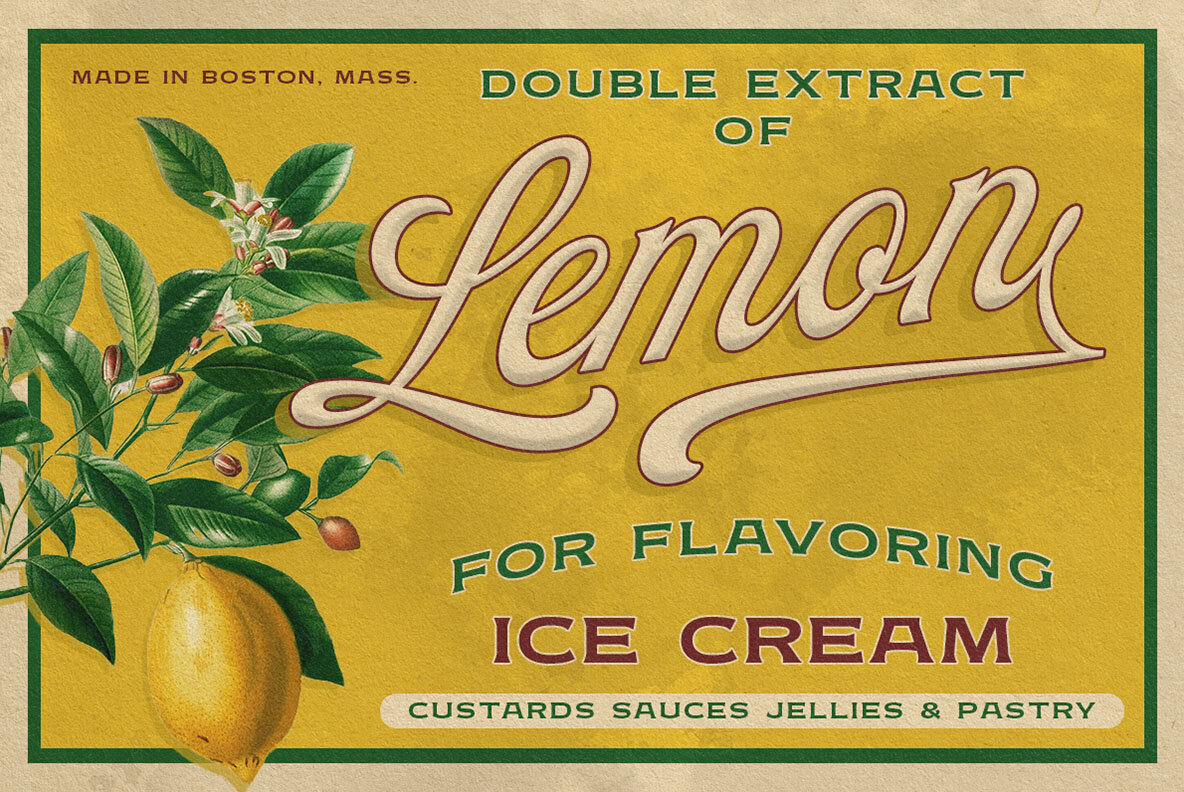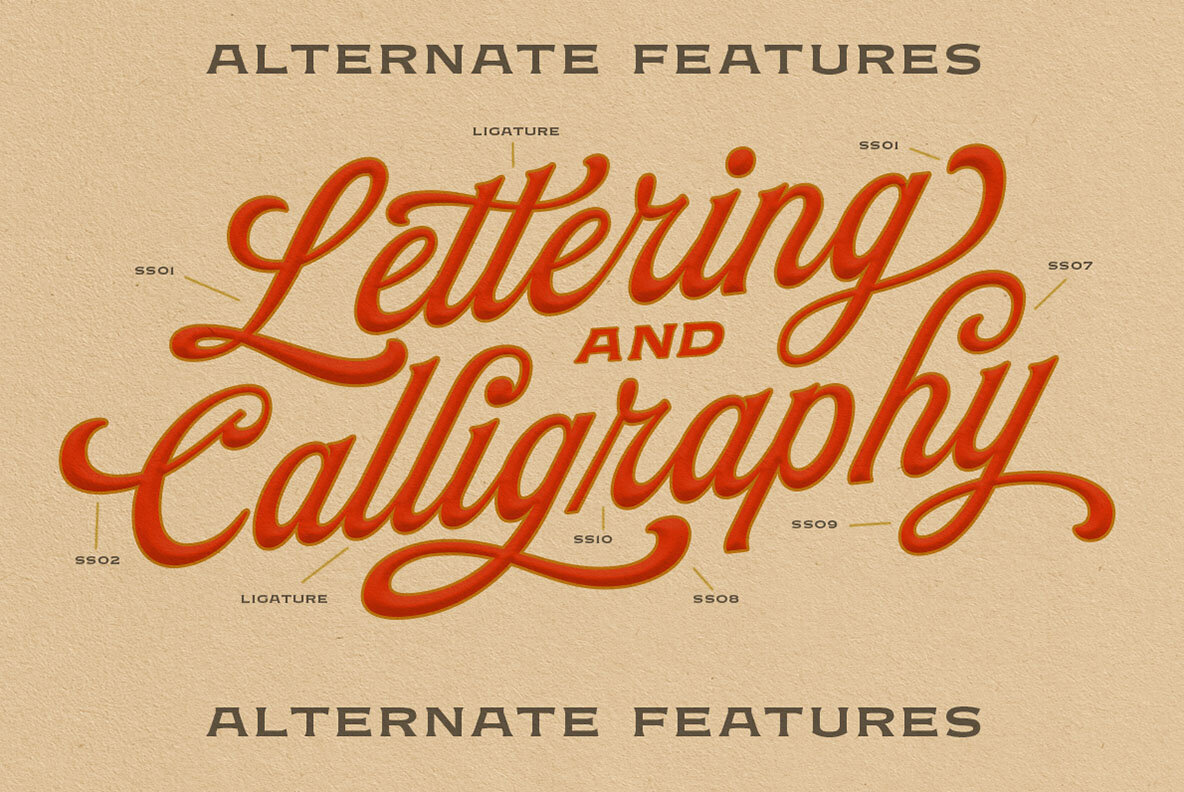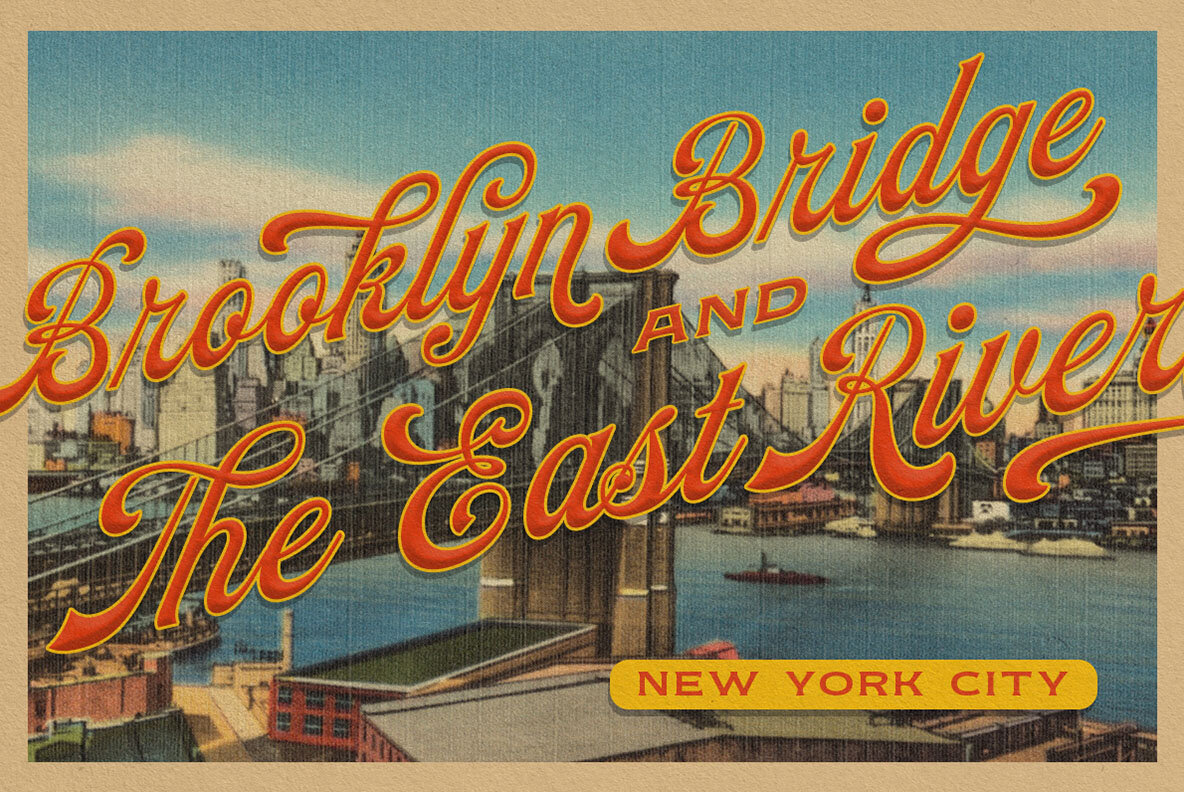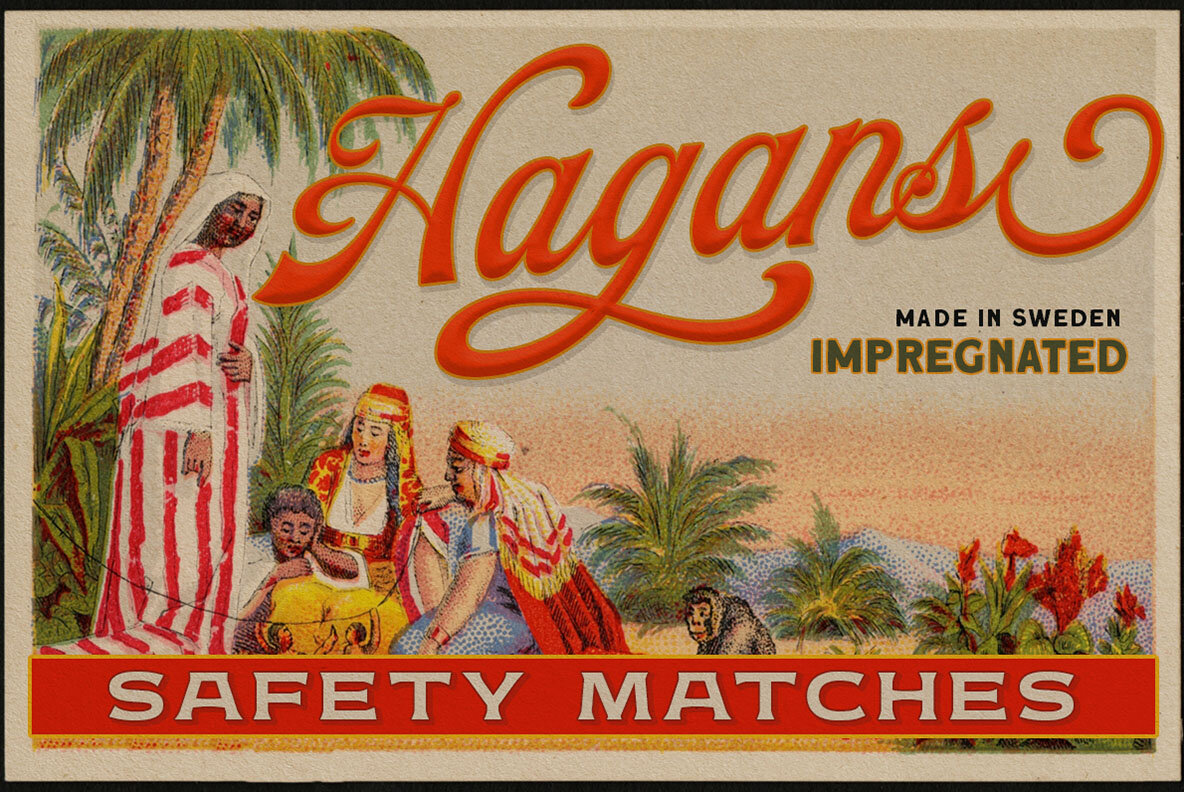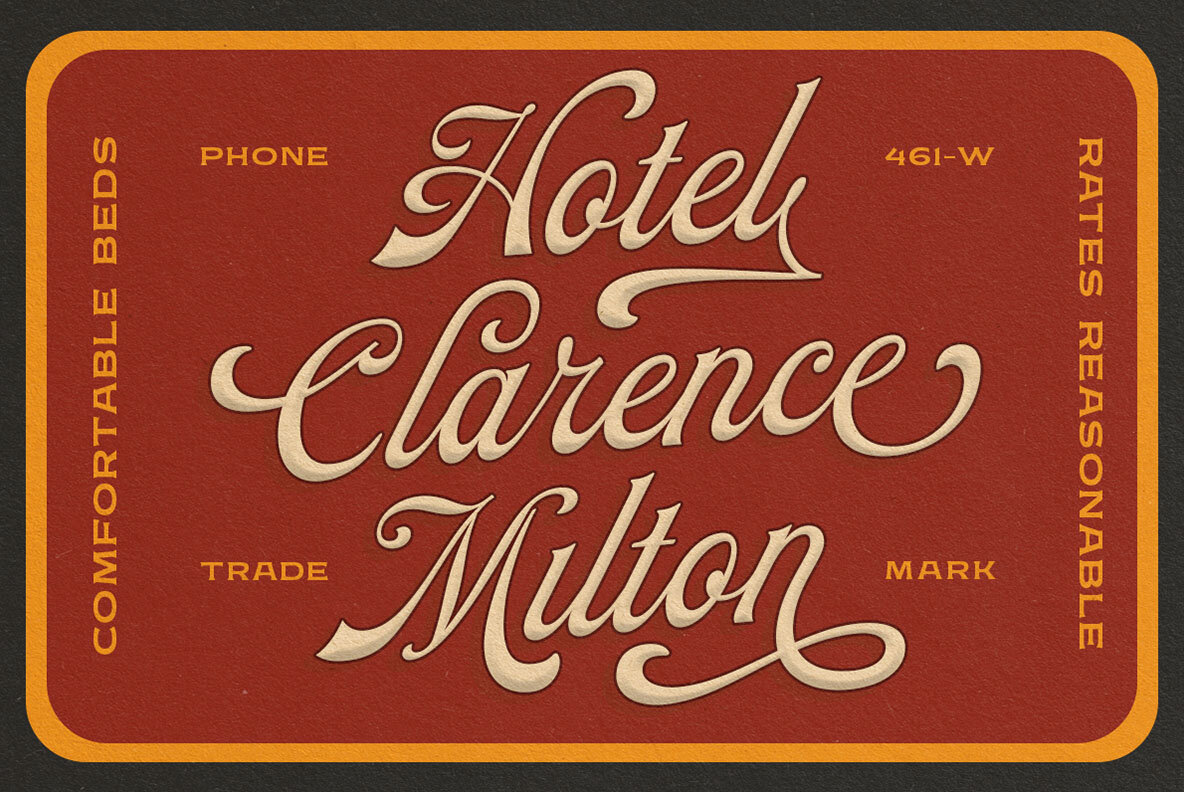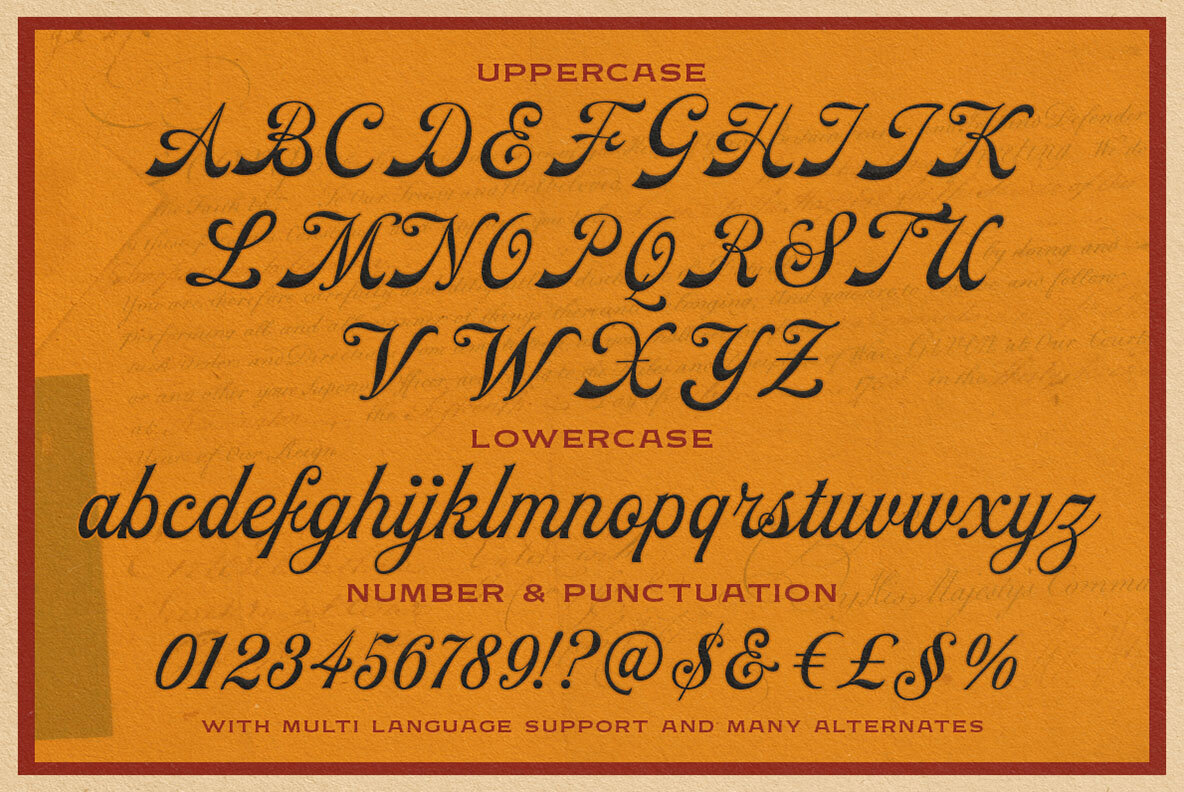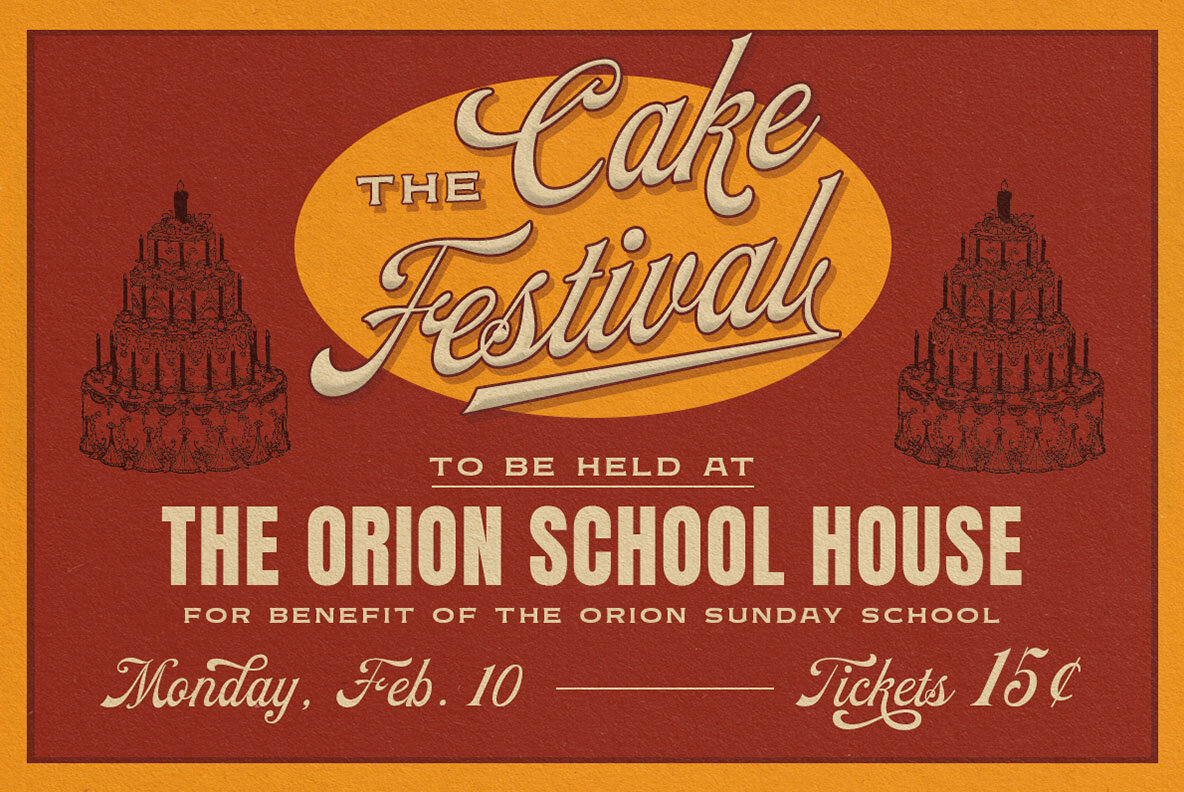
Capture the elegance of the past with Elite Citadel, a vintage script font that excels in logos, headlines, and signage. This versatile typeface is perfect for formal uses like invitations, labels, magazines, books, greeting and wedding cards, packaging, fashion, makeup, stationery, novels, and various advertising needs.
Features :
• Uppercase & lowercase
• Numbers and punctuation
• Alternates & Ligatures
• Multilingual Support